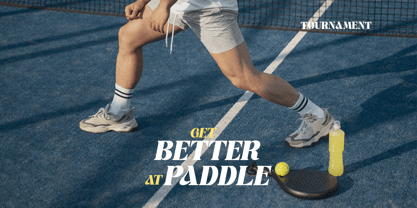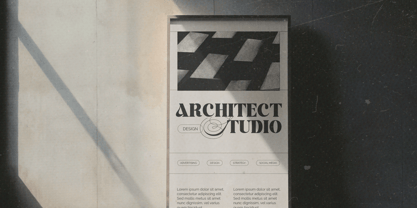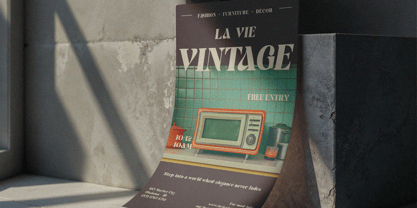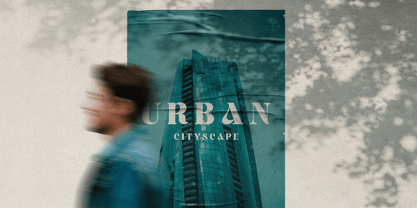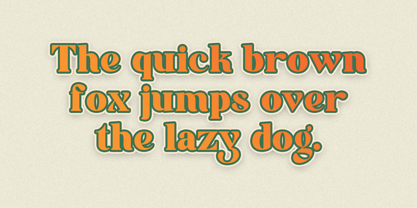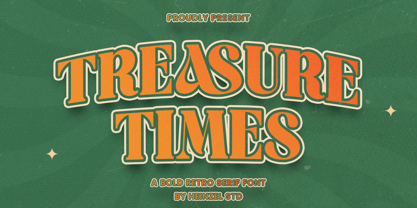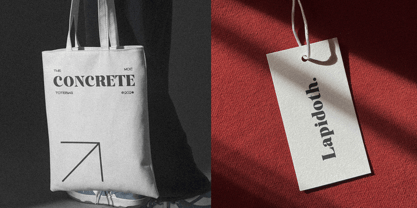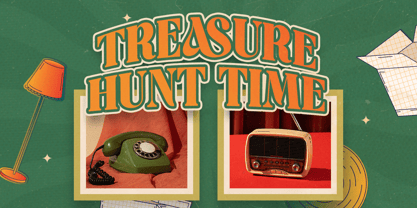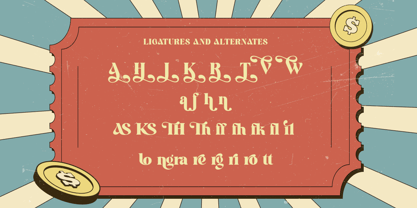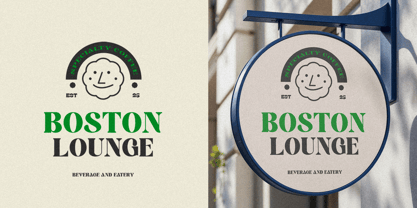
Treasure Times
by Heinzel Std
The Treasure Times Font Family was designed by Nofi Sofyan Hadi and published by Heinzel Std. Treasure Times contains 2 styles and family package options. More about this family
Treasure Times is a bold retro serif font that captures the charm of vintage typography with a modern twist. Featuring strong letterforms, classic curves, and confident serifs, this font delivers a timeless yet playful aesthetic. Its bold presence makes it perfect for headlines, logos, posters, packaging, branding, and retro-inspired designs that need to stand out with character and warmth. Inspired by classic print and nostalgic signage, Treasure Times blends old-school elegance with contemporary usability. Whether you’re designing for editorial layouts, product labels, or eye-catching displays, this font brings a sense of heritage, confidence, and visual impact to any creative project.
Designers: Nofi Sofyan Hadi
Foundry: Heinzel Std